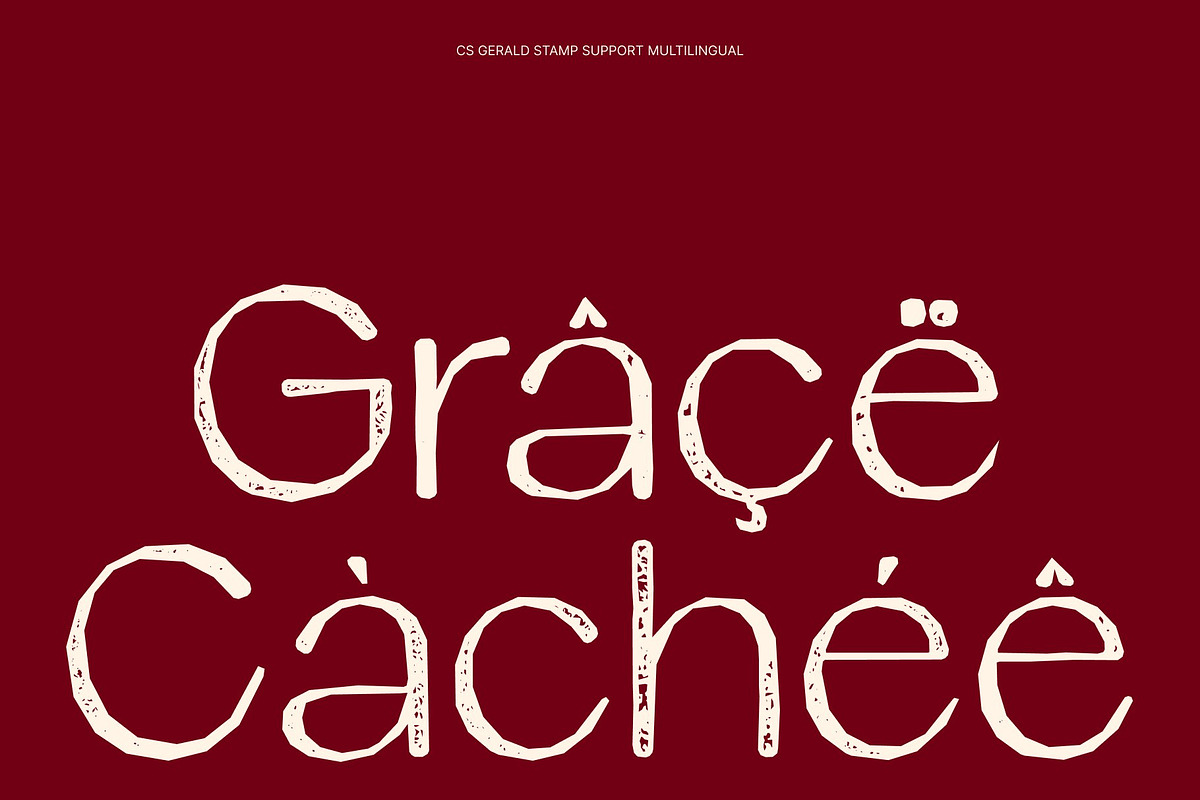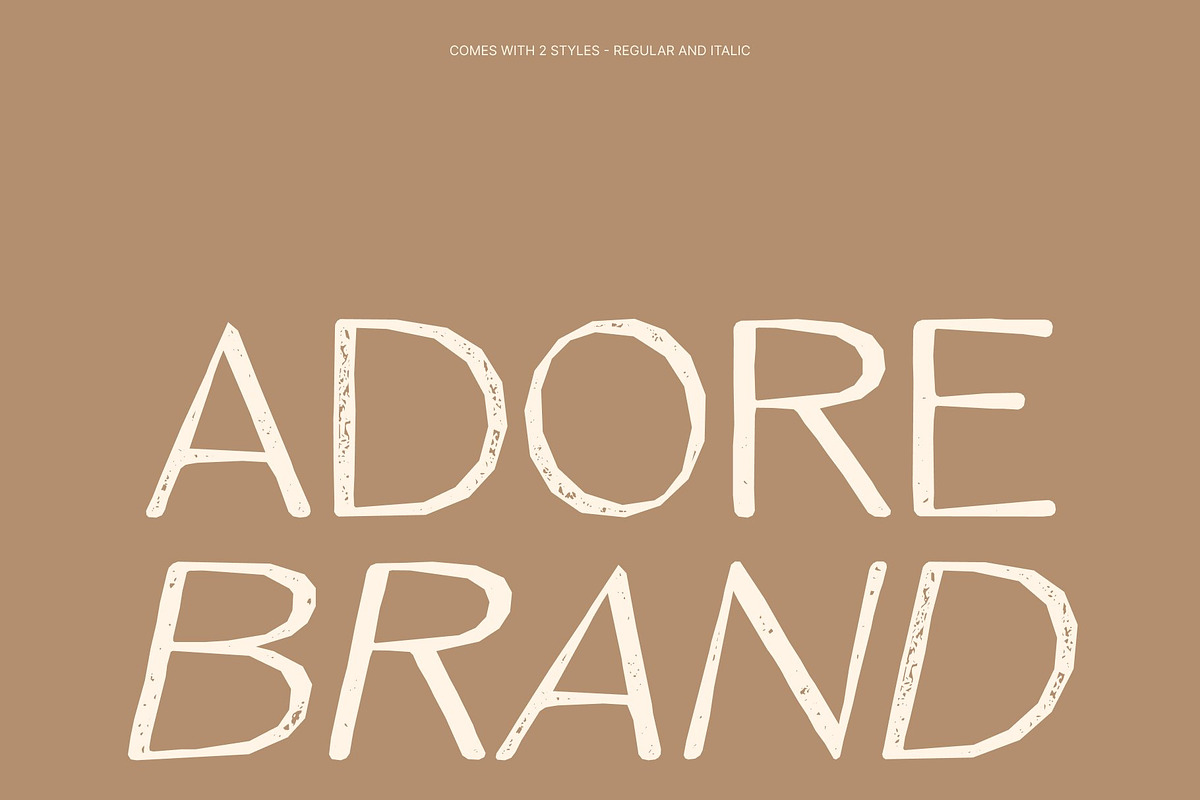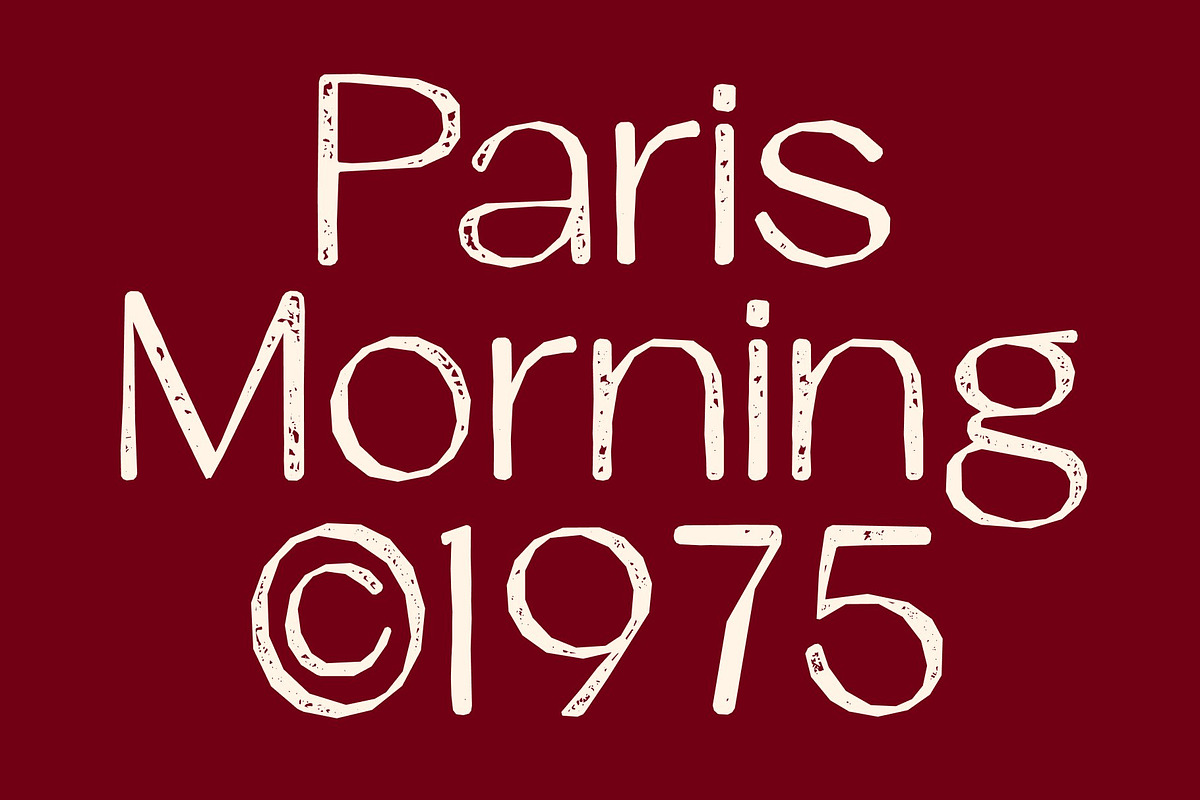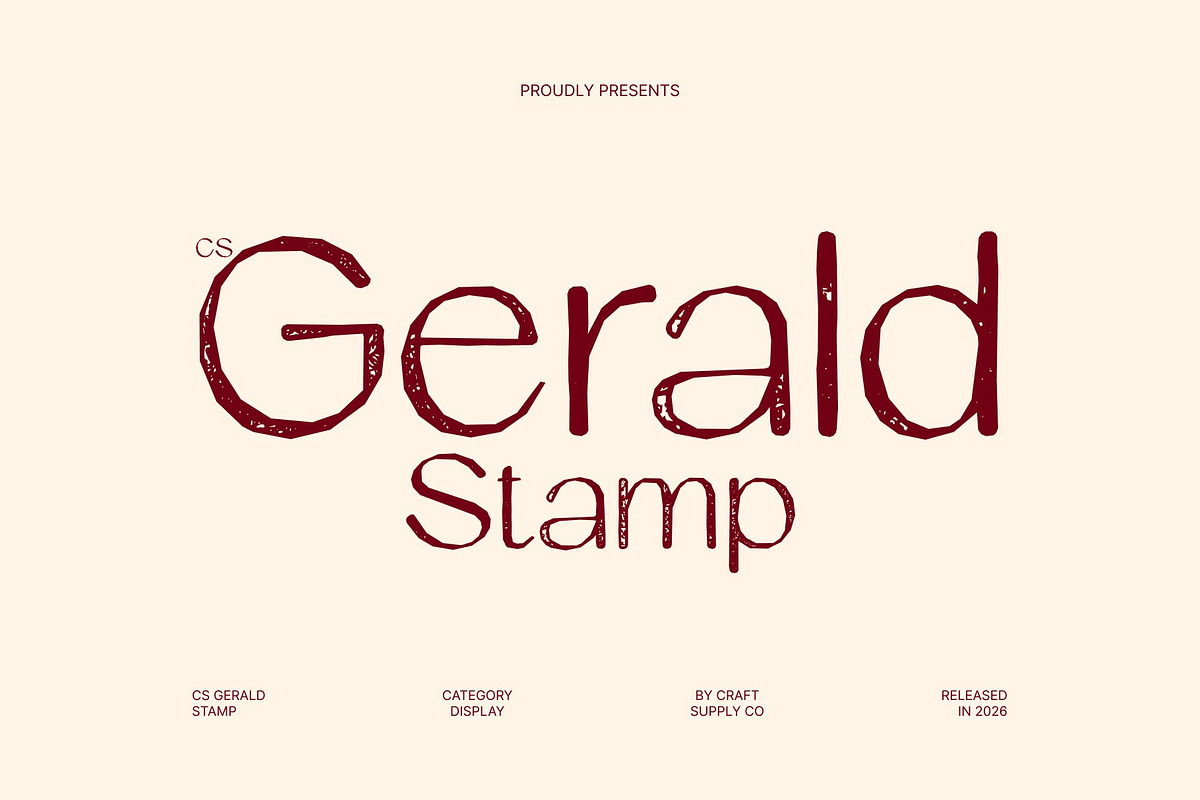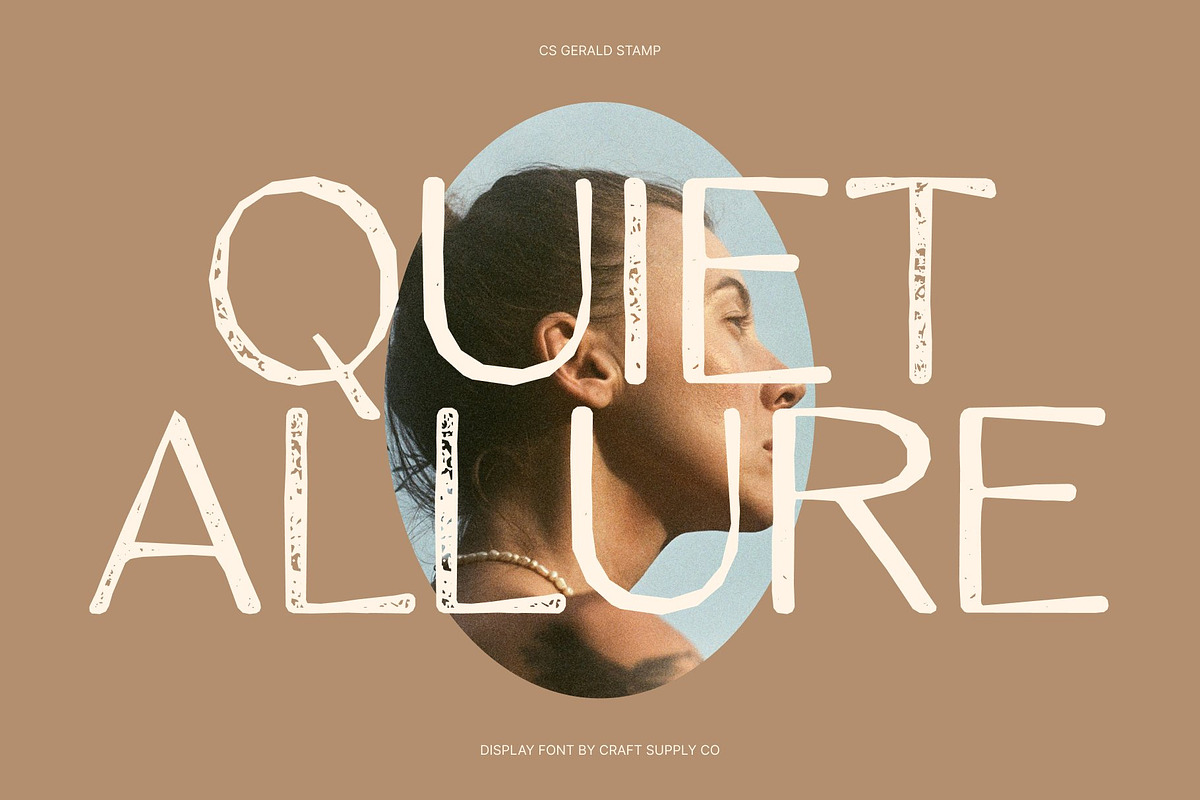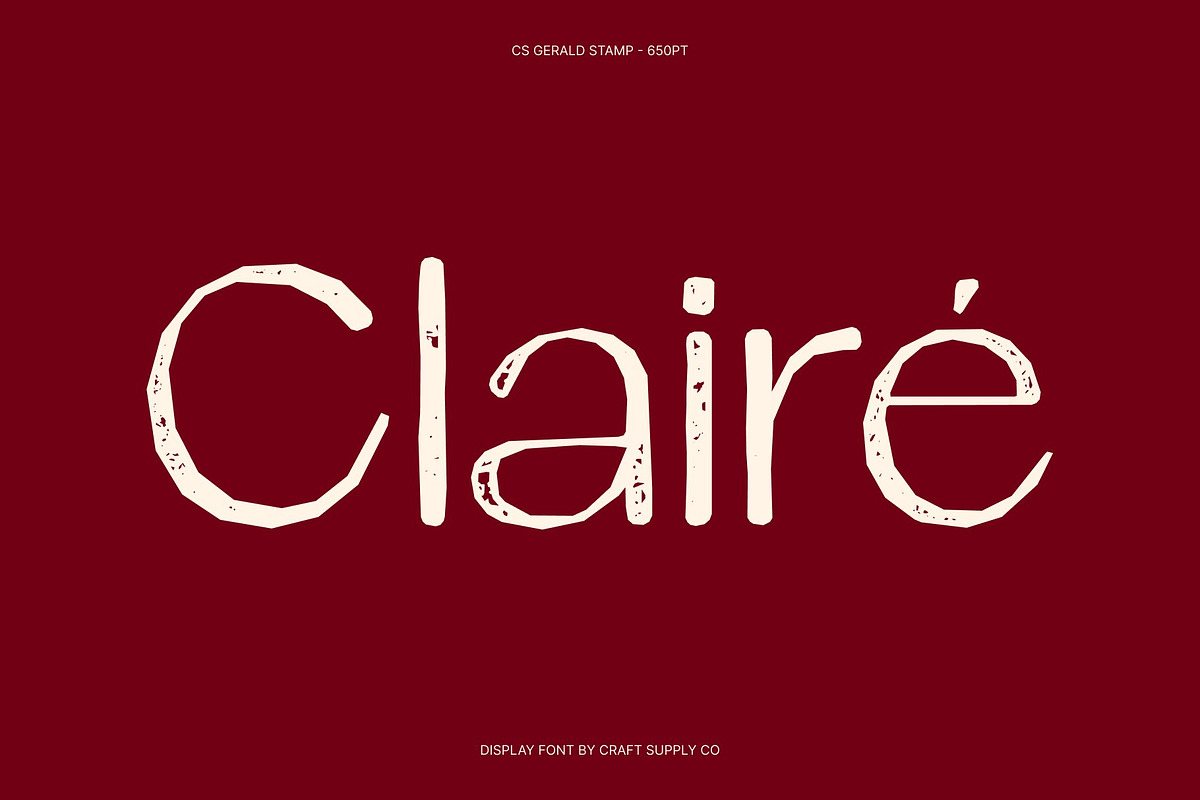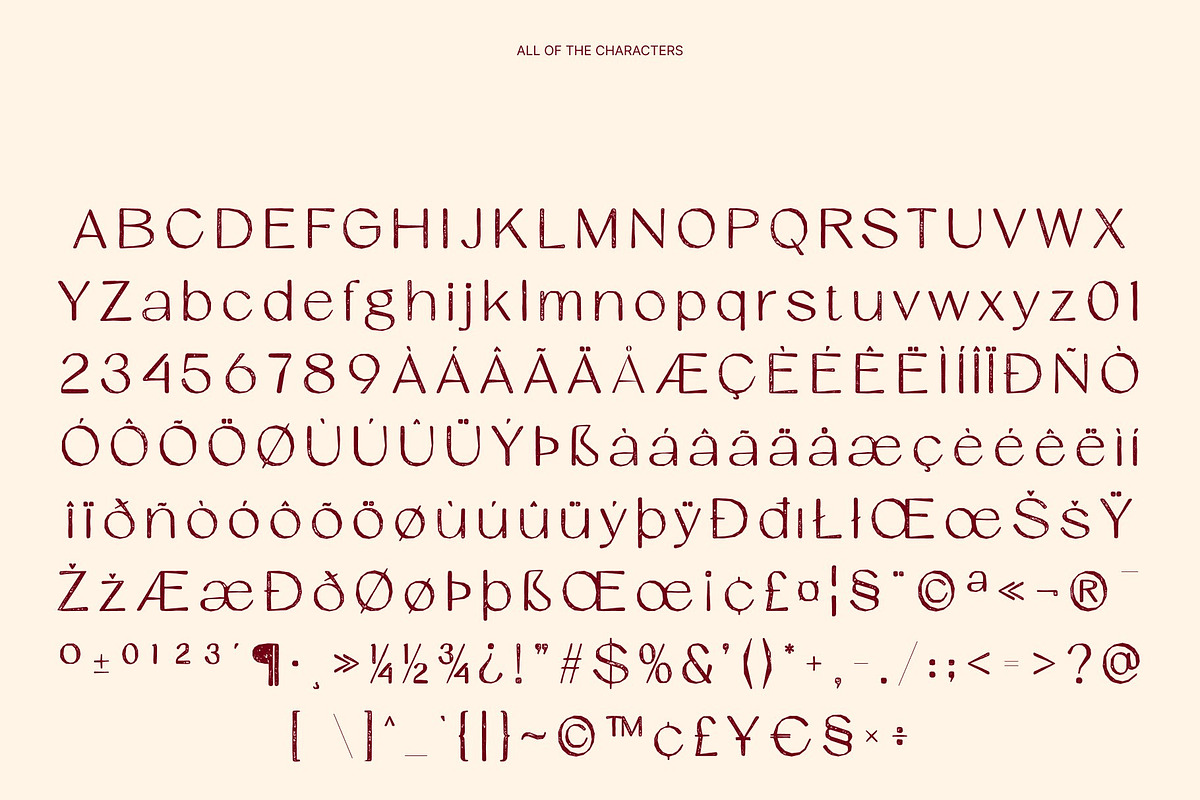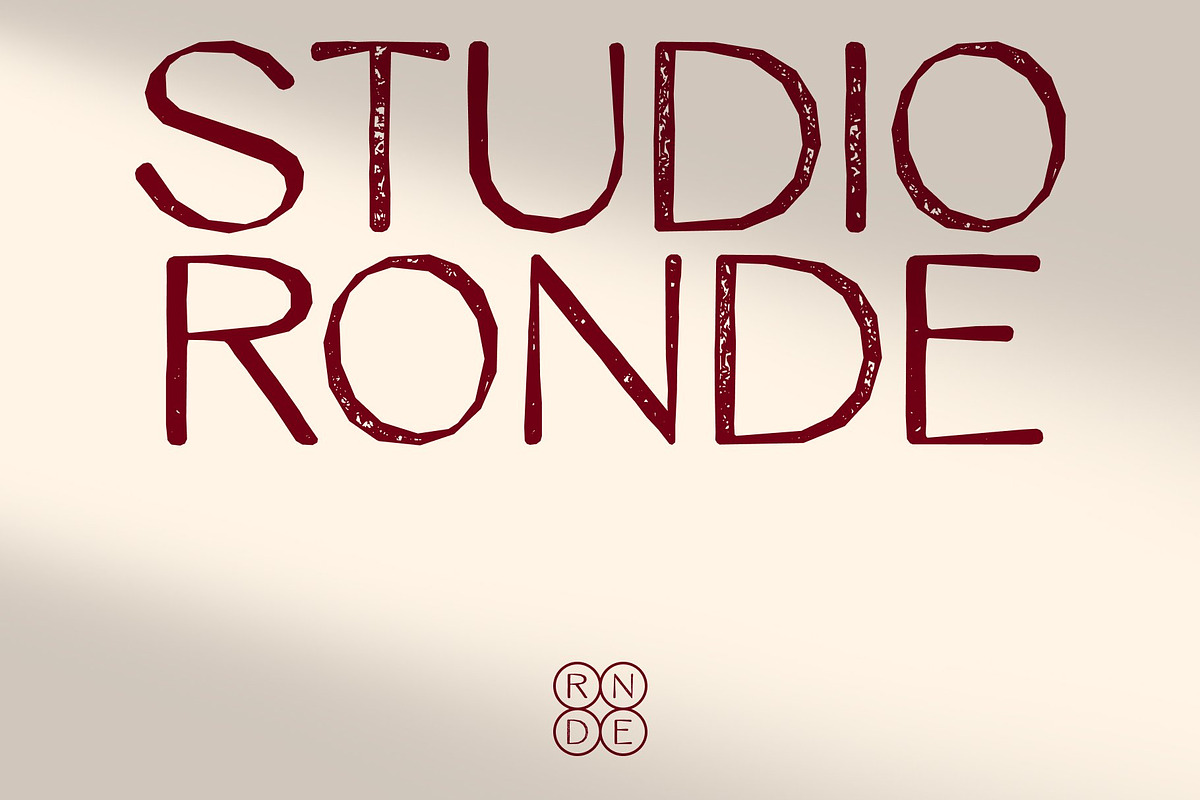
CS Gerald Stamp
CS Gerald Stamp – The Epitome of Modern Elegance
Sleek and Minimalist Design with Refined Clarity This is a modern sans serif font that captures the essence of elegance through clean lines, balanced proportions, and a polished minimalist aesthetic. Designed to radiate sophistication, its smooth curves blend seamlessly with crisp edges to create a harmonious and contemporary visual language.
Balanced Proportions for Contemporary Versatility Built with carefully measured proportions, this font offers a stable and balanced structure that works beautifully across a wide range of design contexts. Its consistent rhythm and spacing provide excellent legibility in both large display settings and smaller text applications.
Authentic Stamp Effect with Vintage Personality The addition of a subtle stamp texture transforms this font into a font with artistic depth and vintage character. Gentle imperfections and ink-like distress details introduce a handcrafted charm that contrasts beautifully with its modern minimalism. This textured finish adds warmth, personality, and visual interest, giving designs a timeless, tactile quality while preserving the font’s clean foundation.
Perfect for Branding, Editorial, and Professional Projects This font excels in projects that require a balance of sophistication, clarity, and artistic charm. From luxury branding and invitations to promotional materials, packaging, and editorial layouts, the font enhances every design with a calm and professional presence. Its combination of modern minimalism and vintage texture makes it ideal for creating visuals that feel refined, memorable, and enduring.